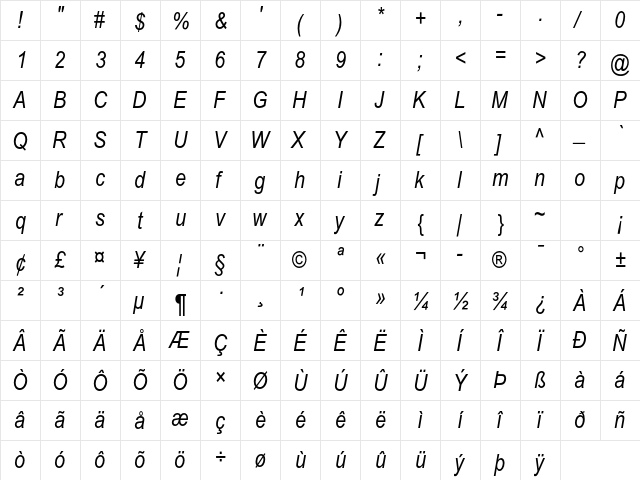
Arial Narrow MT Std Italic Font Preview
| Foundry | Agfa Monotype Corporation |
Design Context for Arial Narrow MT Std Typeface
Arial Narrow MT Std offers clean, dependable letterforms without strong stylistic allegiance, making it a practical choice for designers who need flexibility. The dynamic lean of this cut emphasises speed and emphasis in any layout. The condensed width makes it efficient for tight spaces without sacrificing legibility.
Pro Tip: Try Arial Narrow MT Std for annotation and caption copy alongside an upright companion — the contrast in angle creates a dynamic but ordered typographic system.